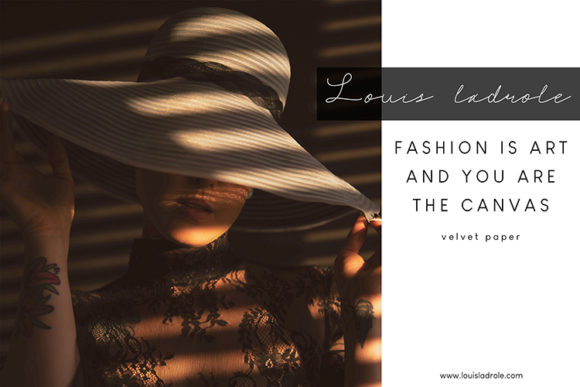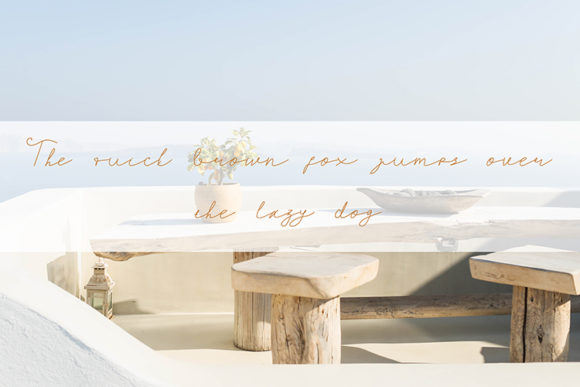
Lafamaria Font
db-ku.com - Script & Handwritten -- Lafamaria, is a cursive and delicate handwritten font. This gentle font will look gorgeous on a variety of design ideas. It will add a joyful and romantic touch to each of your projects!